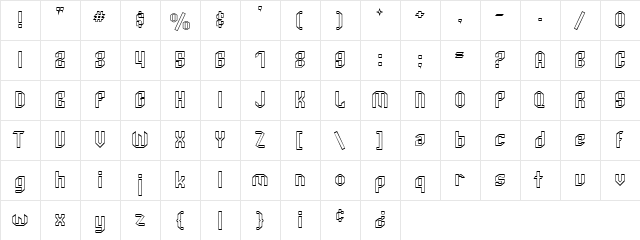
Archery Black Outline Regular
Design Context for Archery Black Outline Typeface
Archery Black Outline brings ornamental detail and strong personality to headlines and identities, where visual impact matters more than quiet functionality.
Font Pairing: Pair with a clean neutral sans-serif for body copy to let Archery Black Outline's character lead without overwhelming the composition.
Pro Tip: Treat Archery Black Outline as the centrepiece of your typographic hierarchy. One strong heading set in a decorative face can carry an entire layout.